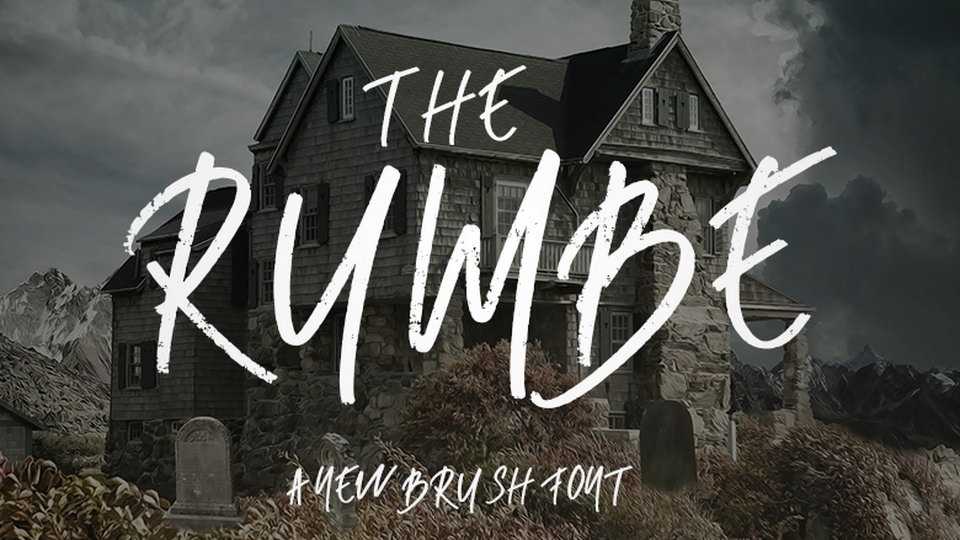
Download Rumbe font, an energetic handwritten brush script with a rough texture. It contains all caps letters and numbers. Rumbe script looks perfect for posters and social media, t-shirts and other apparel prints, cards, packaging and more.